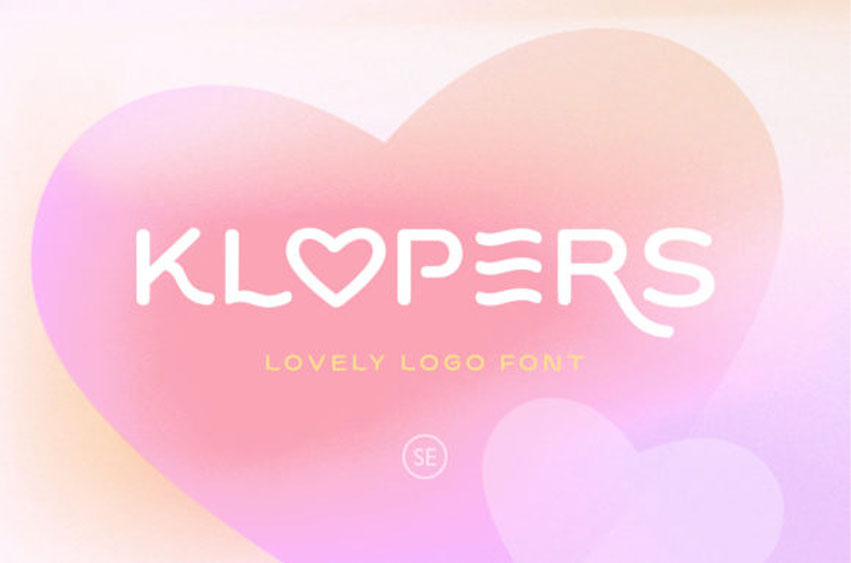
Klopers Font
Klopers Font is a friendly, light, and adaptable display font.
Add it to each of your party invitations, gatherings, or pretty much any design that requires a touch of youth and joy.